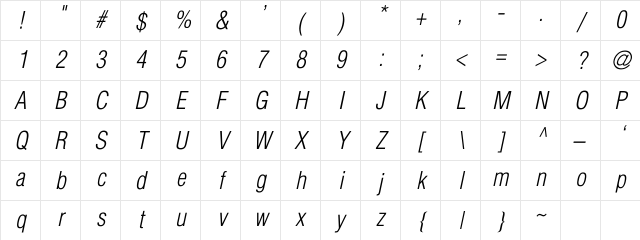
SwitzerlandCondLightItalic Regular
Design Context for SwitzerlandCondLightItalic
SwitzerlandCondLightItalic is a composed and adaptable typeface that performs quietly and consistently across a wide range of design contexts. The slanted form adds forward momentum and visual energy. Its slender proportions lend an understated elegance to any composition. Its narrow stance lets it pack a punch even in space-constrained designs.
A practical choice for tight layouts, multi-column editorial design, and space-efficient signage.
Pro Tip: Use SwitzerlandCondLightItalic for emphasis, pull quotes, and subheadings where its slanted energy can add rhythm to the layout.